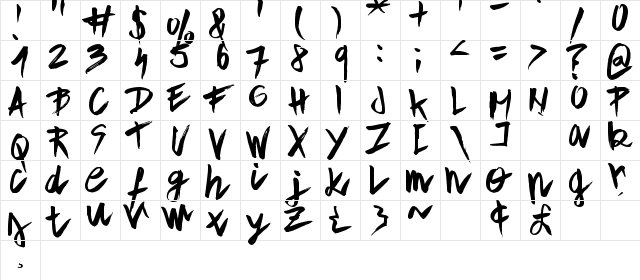
Aple Time Regular
| Designer | Leonard Posavec |
Design Context for Aple Time Typeface
Aple Time is a composed and adaptable typeface that performs quietly and consistently across a wide range of design contexts.